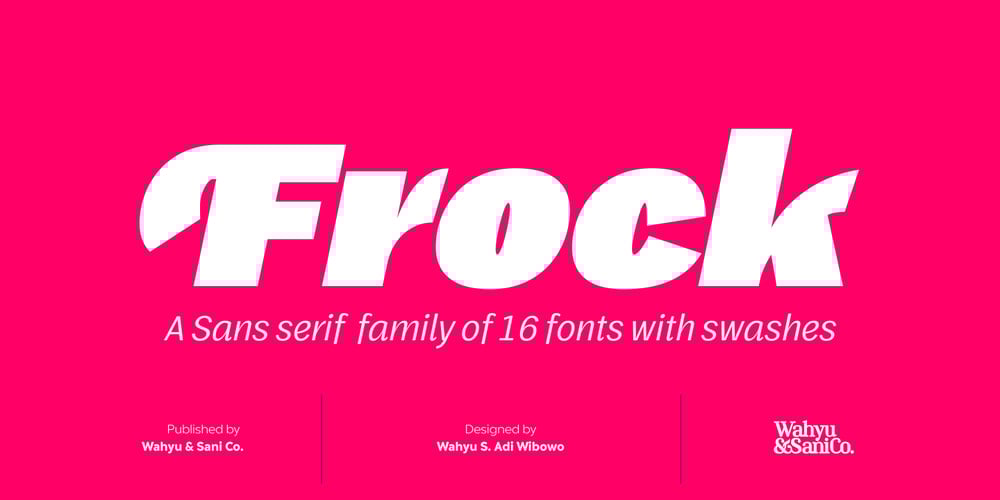
Frock Font Family was designed by Wahyu Wibowo and published by Wahyu and Sani Co.. Frock contains 16 styles and family package options. Please welcome Frock! It is a sans serif typeface for broad range of usage. It is designed with a slightly slanted oval shaped counters, medium contrast and based on American gothic typefaces with “not so formal” feel. The italic styles are flowy and almost true italic. Swash alternates for some uppercases and lowercases are useful for logo, display and poster. This family comes with 16 styles, uprights and matching italics, consisting of 8 weights from thin to ultra. It is also equipped with useful OpenType features such as Ordinals, Superiors, Stylistic Sets, Proportional Lining Figures, Standard Ligatures, Discretionary Ligatures, Fractions, Numerators & Denominators. Each font has 770+ glyphs including swash alternates which covers Western & Eastern Europe, and other Latin based languages – over 200 languages supported!Frock will be suitable for many creative projects. This typeface will be perfect for logos, packaging, greeting cards, presentations, headlines, lettering, posters, branding, quotes, titles, magazines, headings, web layouts, mobile applications, art quotes, advertising, invitations, packaging design, books, book title, and more!